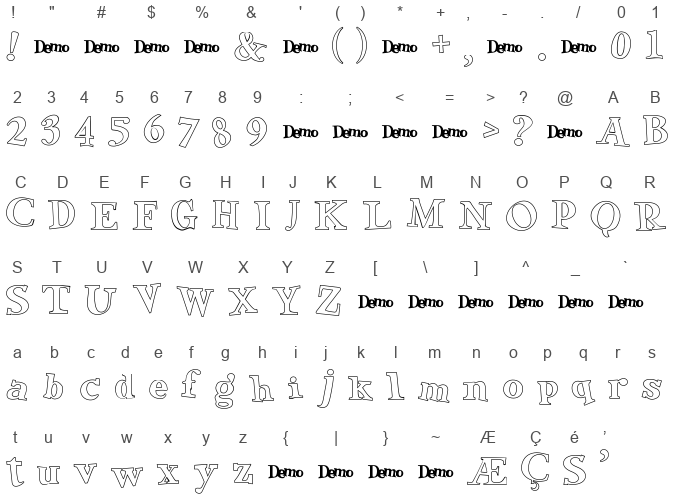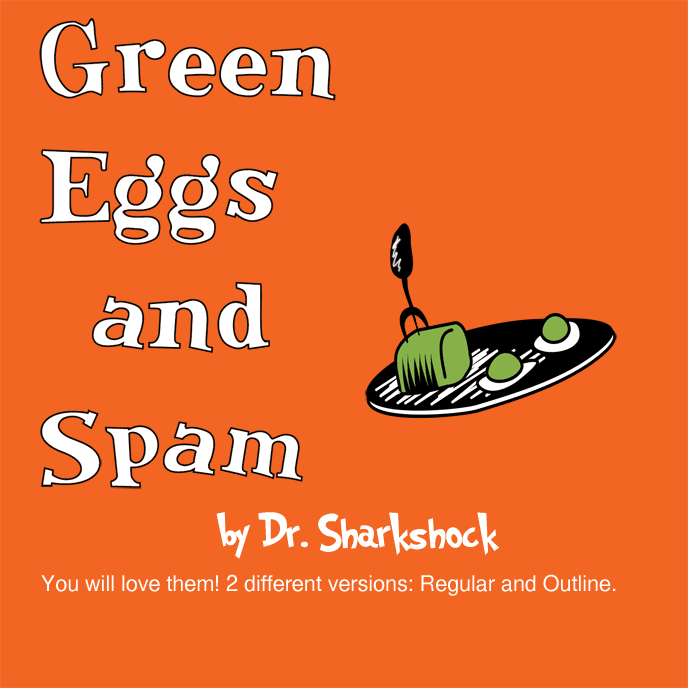
The Green Eggs and Spam font is a serif typeface that is both decorative and playful, clearly inspired by the cartoon aesthetic of Dr. Seuss. The characters are characterized by their smooth, somewhat wobbly, and slightly rounded appearance, giving the font a whimsical quality. This font is particularly versatile as it is available in two different versions: a regular solid style and an outline style.
Green Eggs and Spam